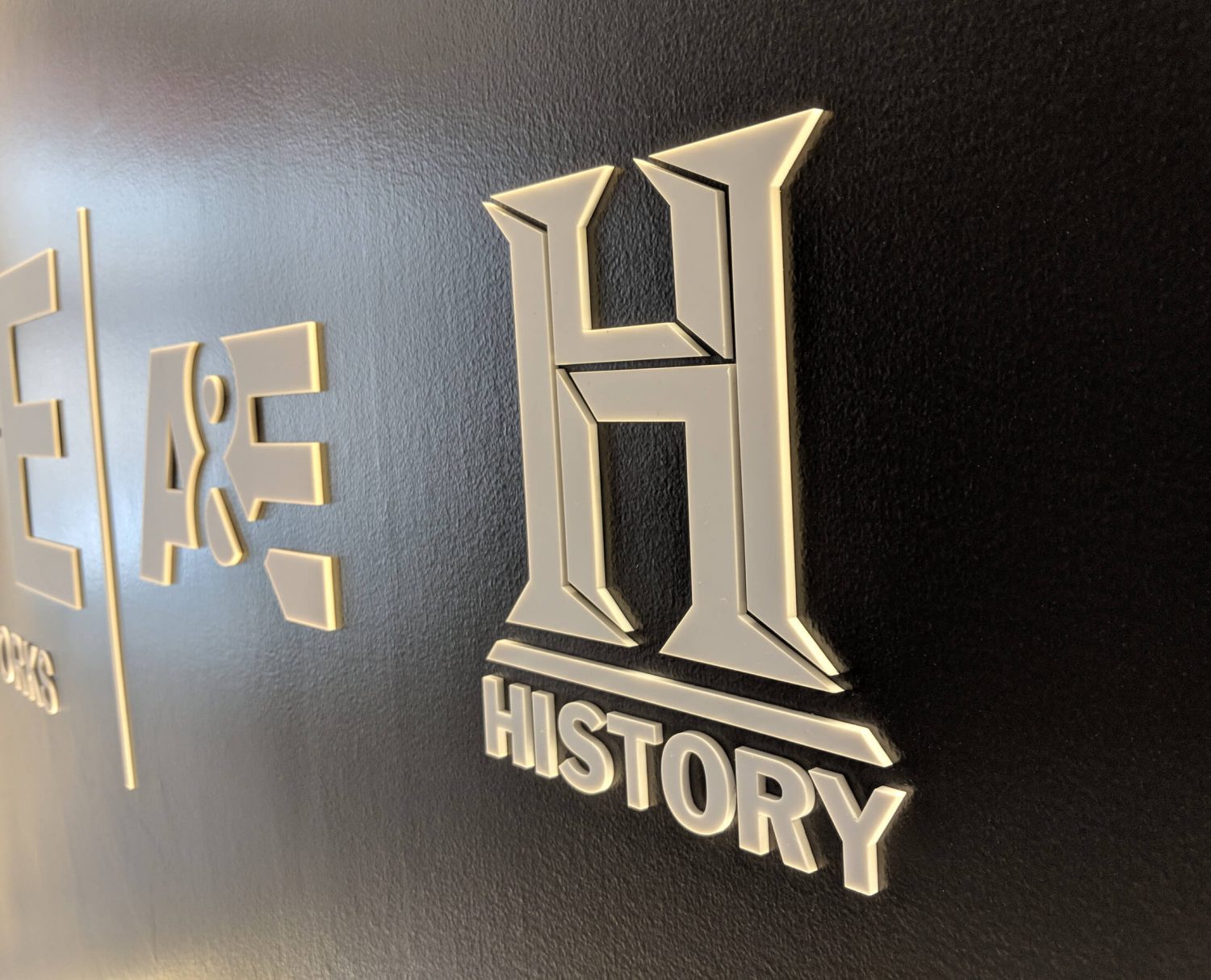
History Channel H Font . Discover the perfect font for your history project with our collection of free history fonts. The logo features a prominent, stylized gold letter 'h' centered inside a square with a thin red outline. The logo history uses the magnum sans pro alfa heavy font. At the bottom, there’s a. At the top, in a black rectangle, is a large white letter, “h,” made in a simple font with. With a variety of styles from vintage to modern, you'll. What font does history use? Click here to download history logo font. About the history channel logo. Media in category history channel logos the following 19 files are in this category, out of 19 total. Canal de historia.png 900 × 923;.
History Channel H Font The logo features a prominent, stylized gold letter 'h' centered inside a square with a thin red outline. Discover the perfect font for your history project with our collection of free history fonts. Canal de historia.png 900 × 923;. At the top, in a black rectangle, is a large white letter, “h,” made in a simple font with. The logo history uses the magnum sans pro alfa heavy font. Click here to download history logo font. Media in category history channel logos the following 19 files are in this category, out of 19 total. With a variety of styles from vintage to modern, you'll. At the bottom, there’s a. The logo features a prominent, stylized gold letter 'h' centered inside a square with a thin red outline. About the history channel logo. What font does history use?
HistoryChannelLogo Sign Company Long Island NY History Channel H Font At the bottom, there’s a. The logo history uses the magnum sans pro alfa heavy font. At the top, in a black rectangle, is a large white letter, “h,” made in a simple font with. With a variety of styles from vintage to modern, you'll. Media in category history channel logos the following 19 files are in this category, out. History Channel H Font.
History Channel logo and symbol, meaning, history, PNG History Channel H Font Discover the perfect font for your history project with our collection of free history fonts. At the bottom, there’s a. Canal de historia.png 900 × 923;. With a variety of styles from vintage to modern, you'll. About the history channel logo. The logo history uses the magnum sans pro alfa heavy font. What font does history use? Media in category. History Channel H Font.
History Channel Logo Font Unbeliefe Facts History Channel H Font Click here to download history logo font. What font does history use? At the bottom, there’s a. Media in category history channel logos the following 19 files are in this category, out of 19 total. Discover the perfect font for your history project with our collection of free history fonts. At the top, in a black rectangle, is a large. History Channel H Font.
History Channel logo and symbol, meaning, history, PNG History Channel H Font With a variety of styles from vintage to modern, you'll. Discover the perfect font for your history project with our collection of free history fonts. About the history channel logo. Click here to download history logo font. Media in category history channel logos the following 19 files are in this category, out of 19 total. At the top, in a. History Channel H Font.
How to Watch History Channel Without Cable Grounded Reason History Channel H Font About the history channel logo. Media in category history channel logos the following 19 files are in this category, out of 19 total. The logo features a prominent, stylized gold letter 'h' centered inside a square with a thin red outline. At the bottom, there’s a. Discover the perfect font for your history project with our collection of free history. History Channel H Font.
History Channel logo and symbol, meaning, history, PNG History Channel H Font The logo features a prominent, stylized gold letter 'h' centered inside a square with a thin red outline. With a variety of styles from vintage to modern, you'll. At the top, in a black rectangle, is a large white letter, “h,” made in a simple font with. About the history channel logo. What font does history use? Click here to. History Channel H Font.